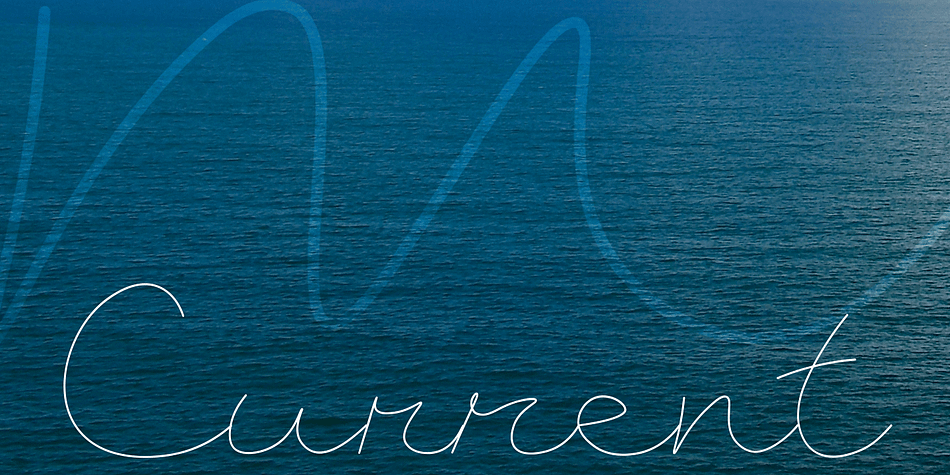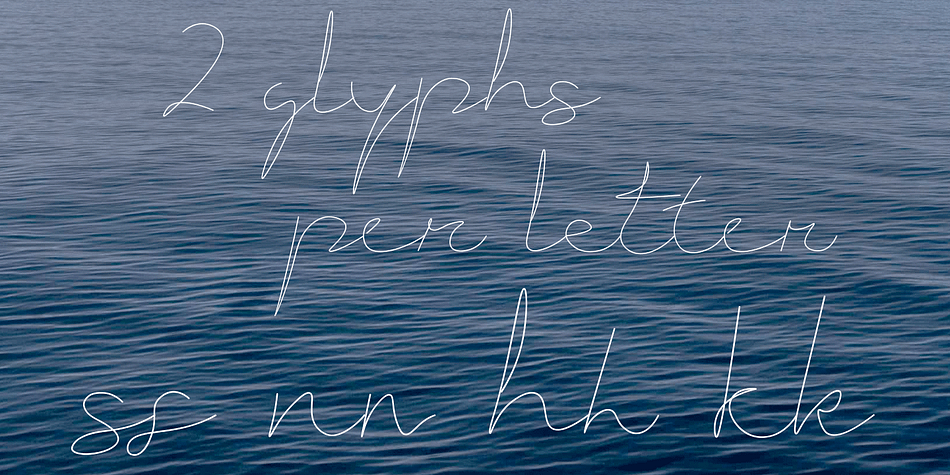
Current is a script font published by A New Machine.
Current is a casual script. It includes two glyphs per letter to let you mix and match, and it will automatically do that with contextual alternates turned on. It also includes a number of ligatures for a more natural feel. Great for an informal look in your designs.